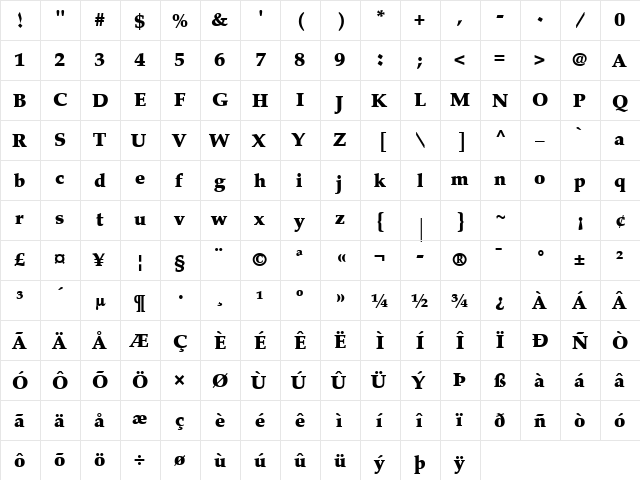
Maged LT Bold Font Preview
Maged LT Bold
Maged LT Bold Font Details
| Foundry | Linotype GmbH |
| Designer | Adrian Williams |
Design Context for Maged LT Typeface
Maged LT takes a measured approach to typography — its balanced proportions and neutral character make it a reliable workhorse for both digital and print work. Its bold stroke weight gives it real presence on the page.